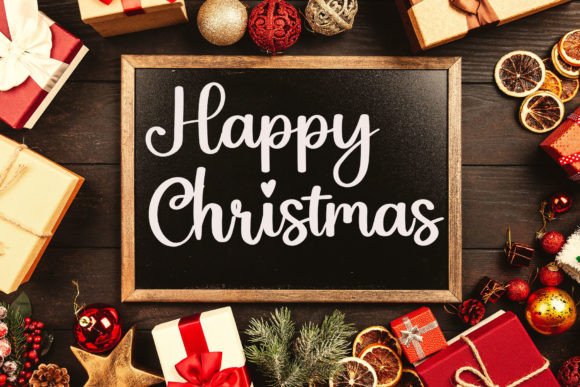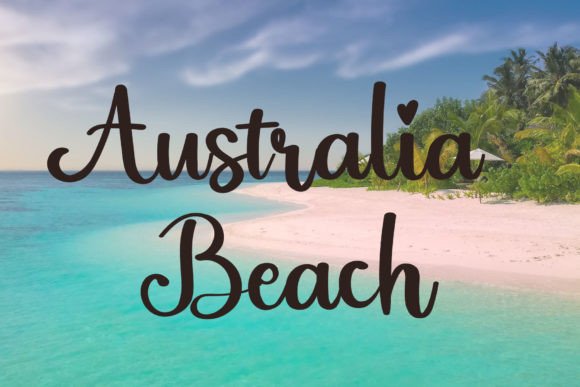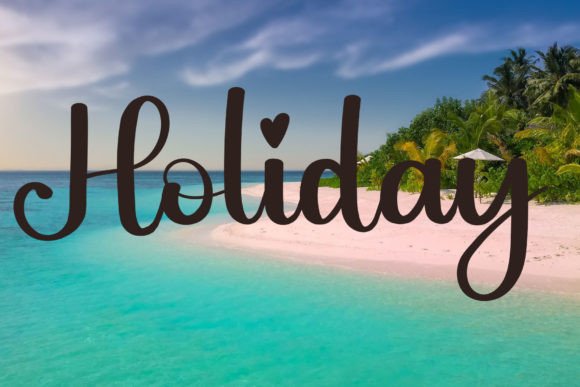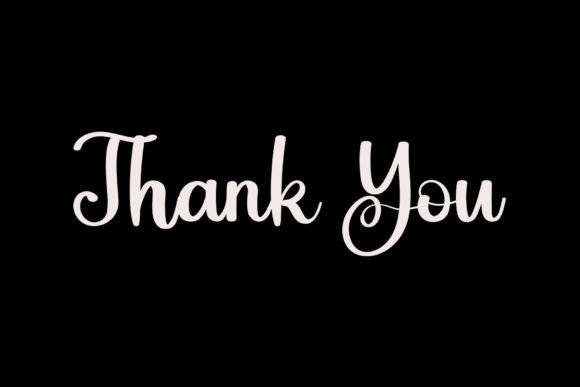
Unleash the Elegance: Discover the Banana Font
Have you ever sat at your desk, staring at a blank sheet of paper, searching for the perfect font to bring your design to life? It’s a moment we’ve all been in – a moment of creative frustration, longing for that perfect combination of style and sophistication. For designers, the right font can make all the difference between a good design and a great one.
That’s where the Banana Font comes in – a trendy handwritten font that exudes a contemporary atmosphere and impeccable form, inspired by timeless classic calligraphy. With its elegant and refined look, the Banana Font is the perfect addition to any design project, adding a touch of sophistication and class to your work.
Banana Font Key Features
- Font Family: Banana Font is a unique, hand-drawn font designed to resemble a banana peel. It is available in various font formats, including OTF, TTF, and WOFF.
- Character Set: The font includes a wide range of characters, including uppercase and lowercase letters, numbers, and punctuation marks. It also includes special characters and symbols.
- Unique Characteristics: The font’s unique, hand-drawn design gives it a playful and whimsical feel. The banana peel-inspired design elements add a touch of humor and personality to any text.
- Style Options: Banana Font is available in various styles, including regular, italic, bold, and bold italic. This allows users to customize the font to suit their needs and preferences.
Design Review: Banana Font
Overall, I’m impressed with the unique personality of the Banana Font. It’s a fun, playful typeface that can add a touch of whimsy to any project. ✨ The font’s irregular shapes and organic feel make it perfect for designs that require a carefree, laid-back vibe.
One of the things I appreciate about Banana Font is its versatility. It can be used for a wide range of projects, from branding and advertising to editorial and social media. ✨ The font is also highly legible, making it easy to read even in smaller sizes.
- ⚠️ Limited flexibility: While Banana Font is great for certain types of projects, it may not be the best choice for more formal or serious designs.
- ⚠️ Limited language support: As with many handwritten fonts, Banana Font may not be optimized for languages that require a high level of precision, such as Asian languages.
Overall, I think Banana Font is a great addition to any designer’s toolkit. It’s a fun, creative typeface that can add a unique touch to any project. However, it’s not a one-size-fits-all solution, and designers should be aware of its limitations before using it in their work.
Banana Font is ideal for:
- Casual, playful designs
- Children’s books and educational materials
Tips for Getting the Most Out of Banana Font
To get the most out of Banana Font, remember:
- Use it sparingly to avoid overwhelming the design
- Pair it with bold, contrasting fonts for maximum impact
- Experiment with different font sizes and styles to achieve the desired effect
Alex Brush Font is a beautiful, handwritten script font with a personal touch. It is ideal for use in creative projects, such as greeting cards, scrapbooking, and journaling. Alex Brush Font is more casual and expressive than Banana Font, making it suitable for personal and creative designs.
Q: Can I customize the Banana Font to fit my design needs?
Yes, the Banana Font is designed to be highly customizable. It includes a range of OpenType features, such as ligatures, fractions, and stylistic sets, which can be used to create custom typography and enhance the visual appeal of your designs. Additionally, the font’s design allows for easy modification using font editing software, making it a versatile choice for designers who require a high degree of customization.